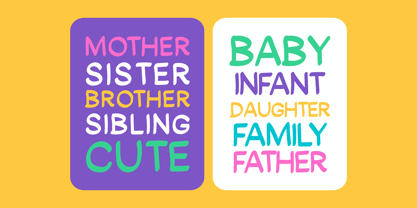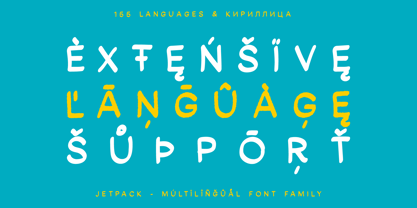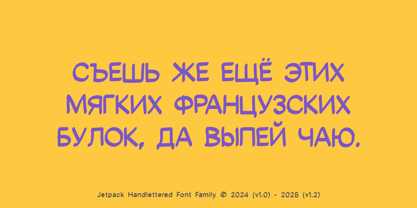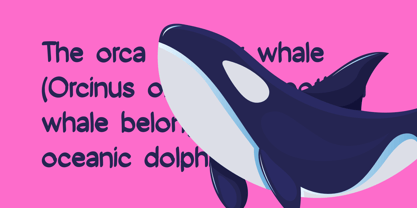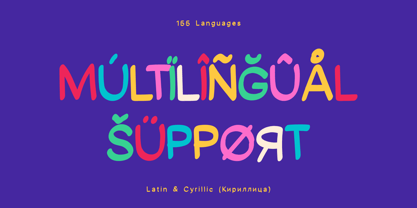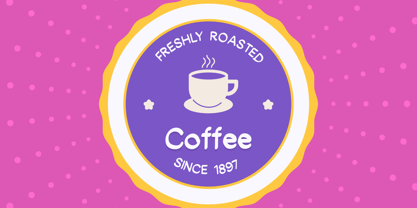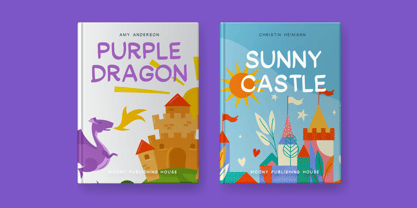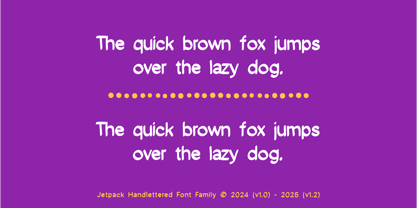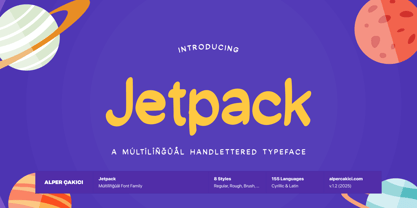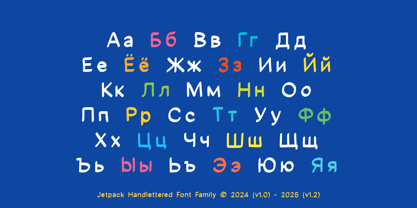
Jetpack
by AlperCakici
The Jetpack Font Family was designed by Alper Çakıcı and published by AlperCakici. Jetpack contains 8 styles and family package options. More about this family
Jetpack is a charming, handwritten font family designed to bring personality, warmth, and playful character to every creative project. Built with smooth curves, lively strokes, and a friendly hand-drawn feel, Jetpack is perfect for designers who want a touch of sweetness without sacrificing clarity or versatility. The family includes 8 expressive styles—Regular, Italic, Angular, Angular Italic, Brush, Brush Italic, Rough, and Rough Italic—each crafted to complement cute, joyful, and whimsical design atmospheres. Whether you need something energetic and textured or clean and cozy, Jetpack adapts effortlessly. With 155-language support (Cyrillic Also), Jetpack is ready for global projects and multicultural branding. From packaging and logos to social media graphics and editorial titles, this approachable typeface delivers handcrafted authenticity with a bright, uplifting personality.